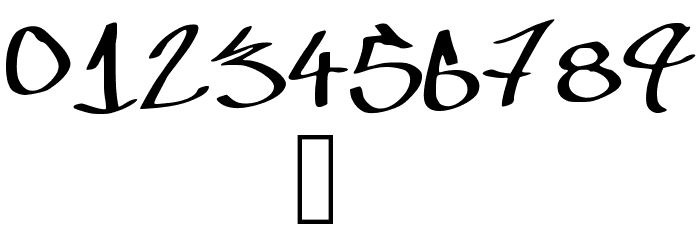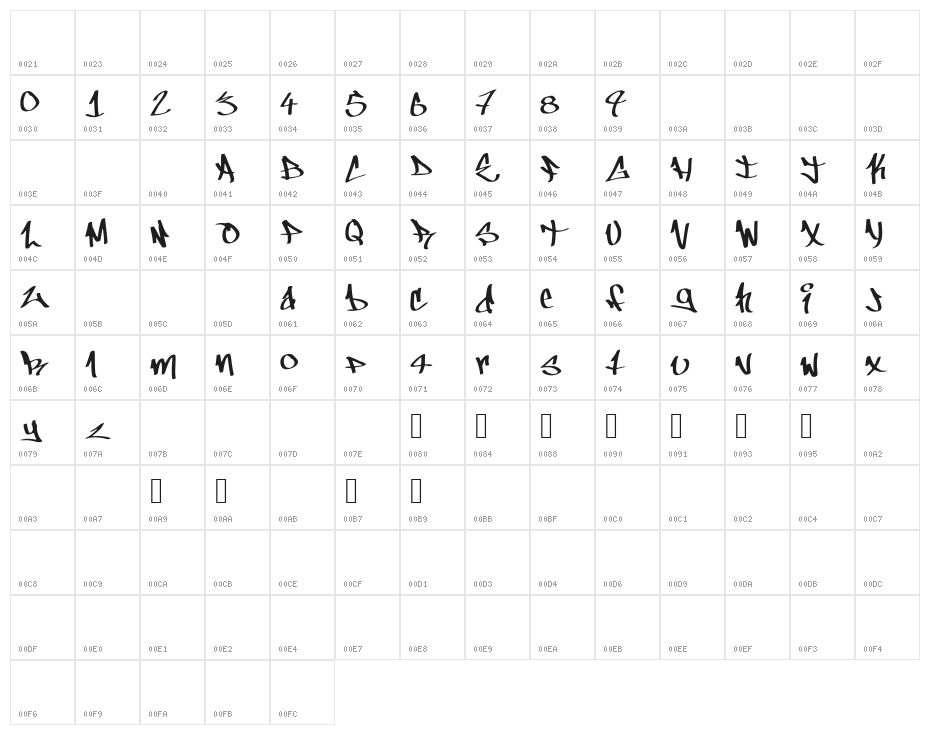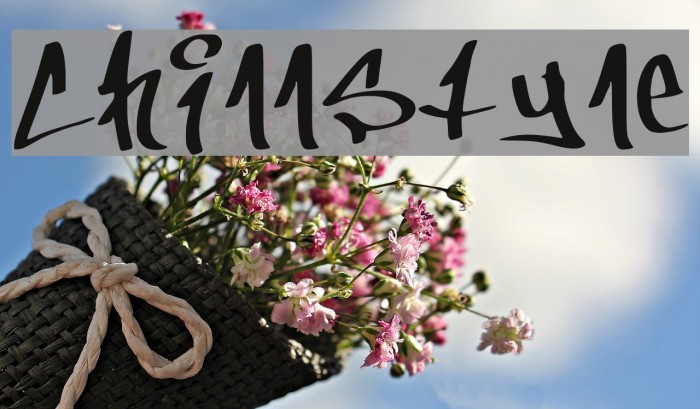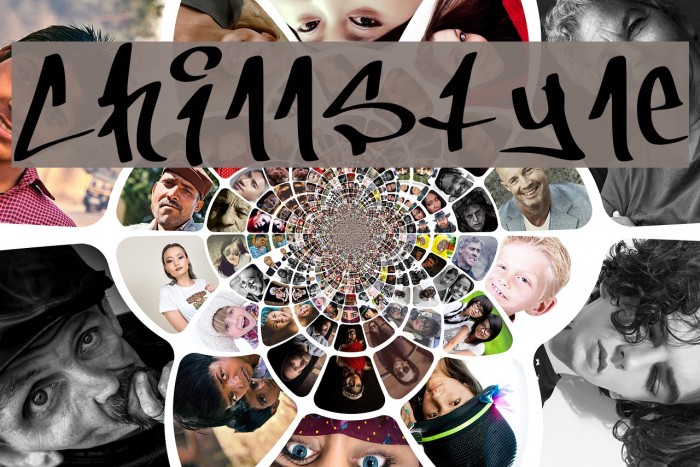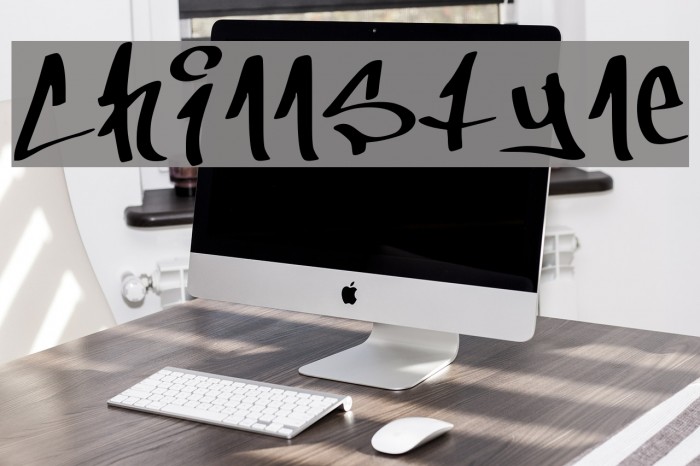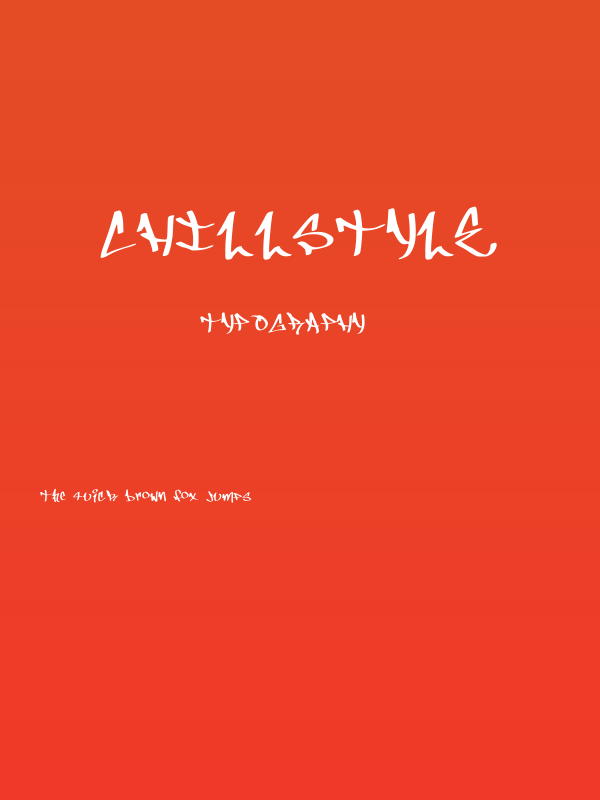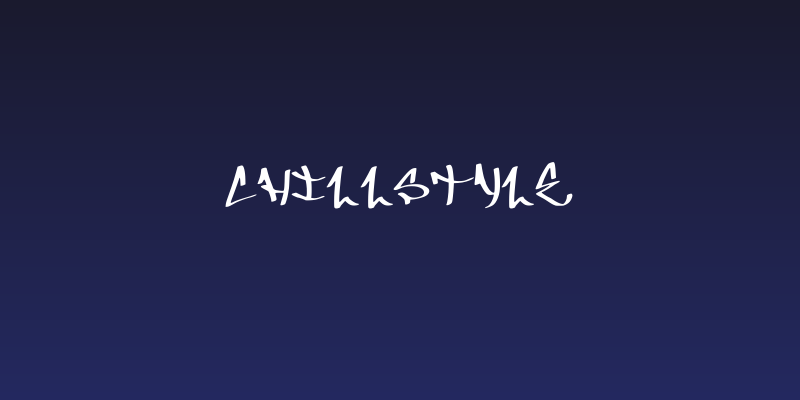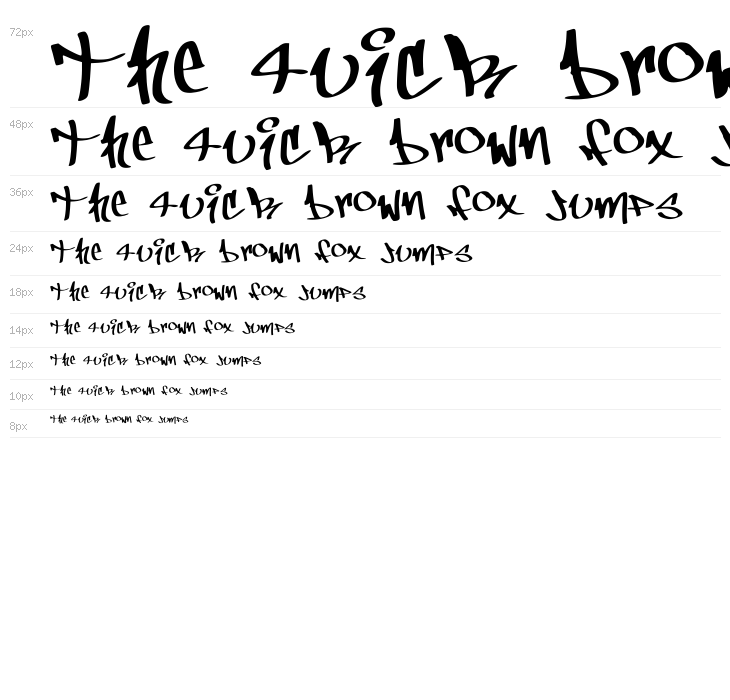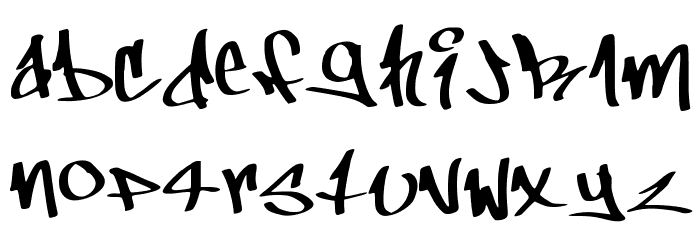
ChillStyle Font
ChillStyle Description
This font features a dynamic and expressive style, characterized by its bold, flowing strokes and artistic flair. The letters exhibit a sense of movement and energy, with each character uniquely crafted to stand out. The uppercase and lowercase letters maintain a consistent style, while the numerals and special characters complement the overall design. The font's playful and creative appearance makes it suitable for projects that require a touch of individuality and flair.
| Use Case | Logos, Posters, Creative projects |
| Proposed Projects | Ideal for branding, posters, album covers, and creative projects that require a unique and artistic touch. |